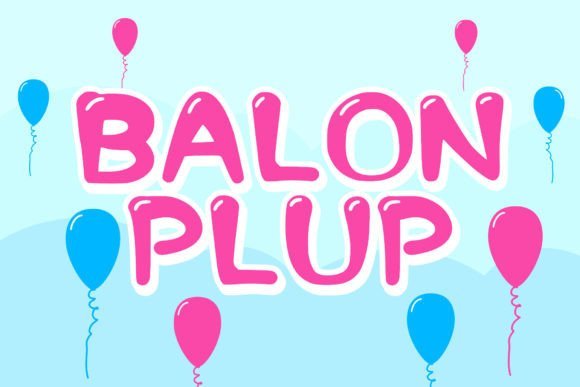
Introduction to Balon Plup Font Font
Balonplup is a display font with a unique and playful character.
This font is often used in designs that require a cheerful, fun, and attention-grabbing vibe With its rounded and bold letterforms, Balonplup gives a light and joyful impression, making it ideal for creative projects such as posters, children’s product packaging, and branding that focuses on happiness.